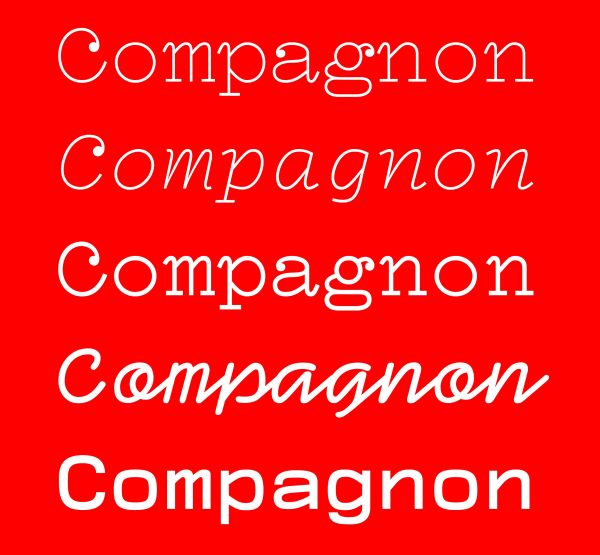
Compagnon Font
Compagnon font is a libre font family from Velvetyne Type Foundry, born out of a collaborative graduation project at the Higher European School of Art in Brittany, France. Each of its five distinctive styles — Light, Roman, Italic, Medium, and Script — was designed by a different designer, with each weight drawing inspiration from a different period in the history of typewriter typefaces, tracing the evolution of the form from early serif specimens to sans-serif and cursive expressions.